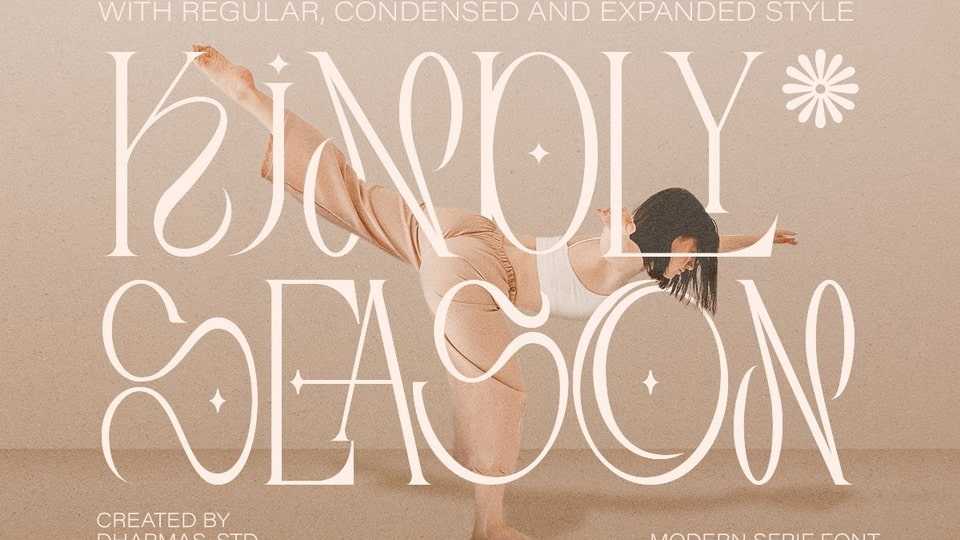
Download Kindly Season font, a display typeface that features cool, decorative-style letters that add a touch of creativity, perfect for headers in projects; it can even be used for logos.